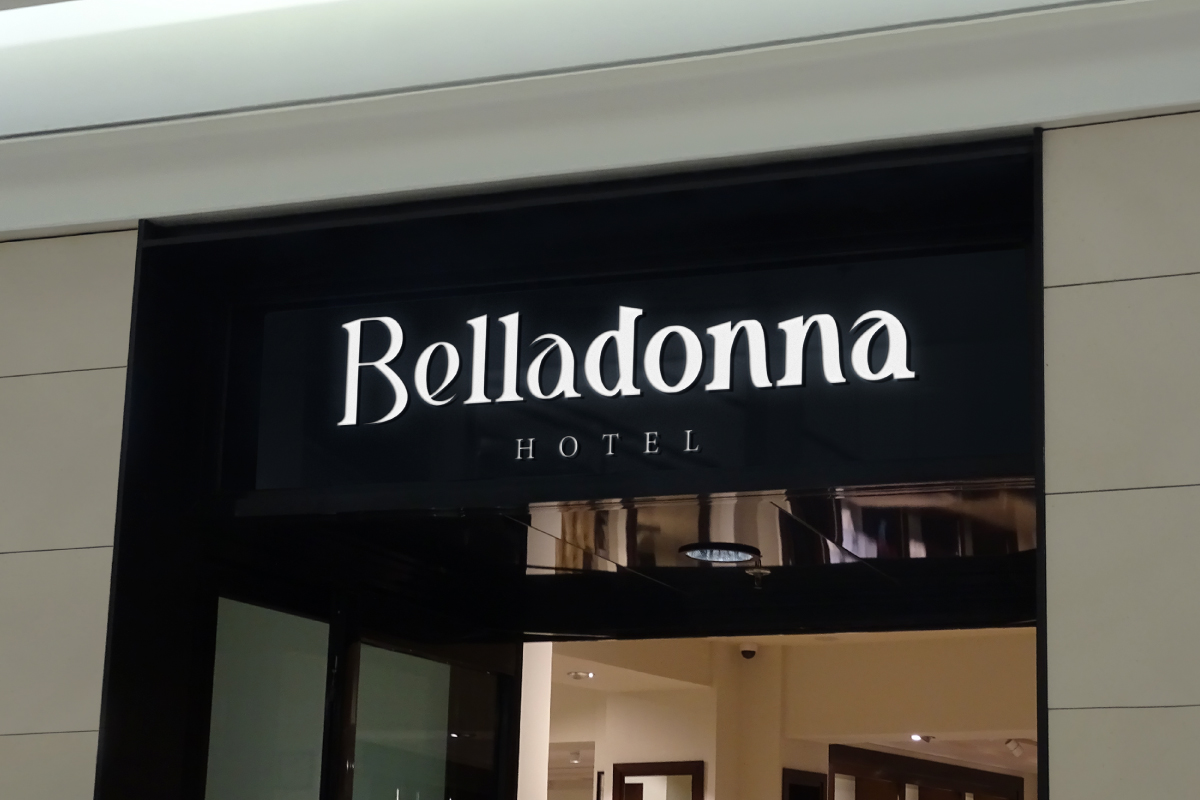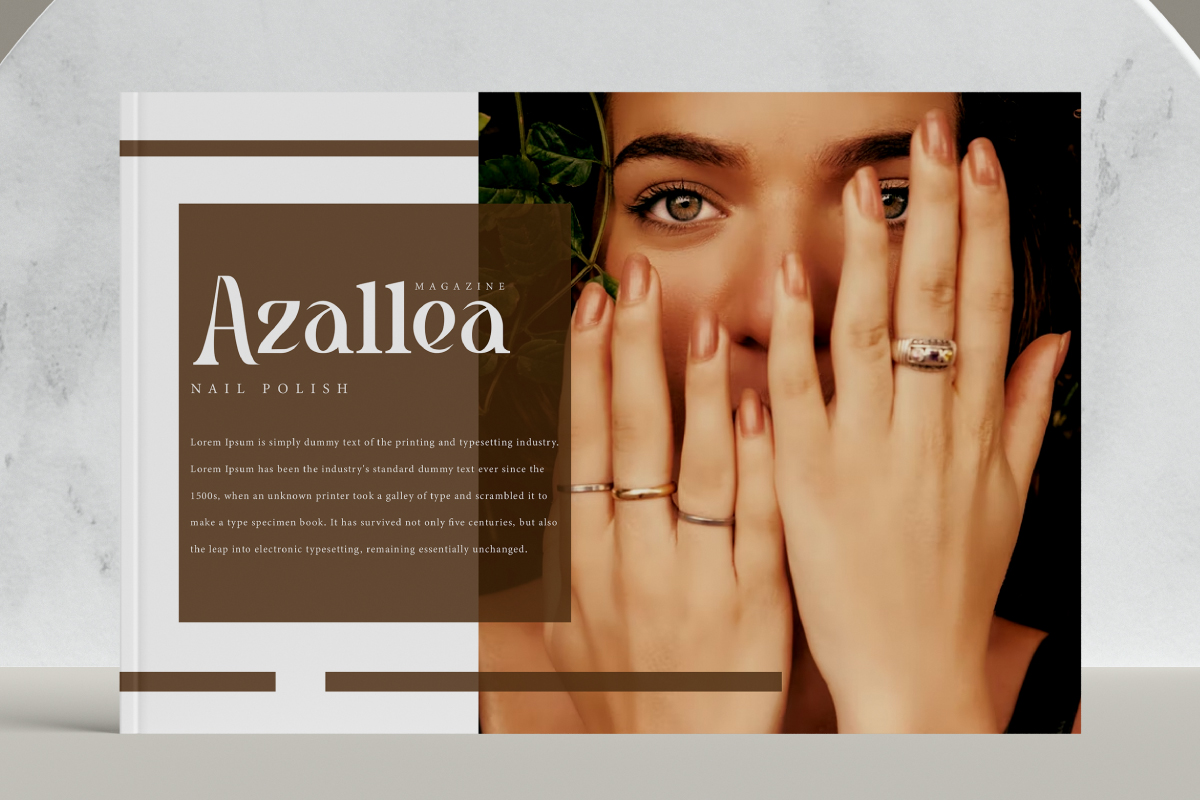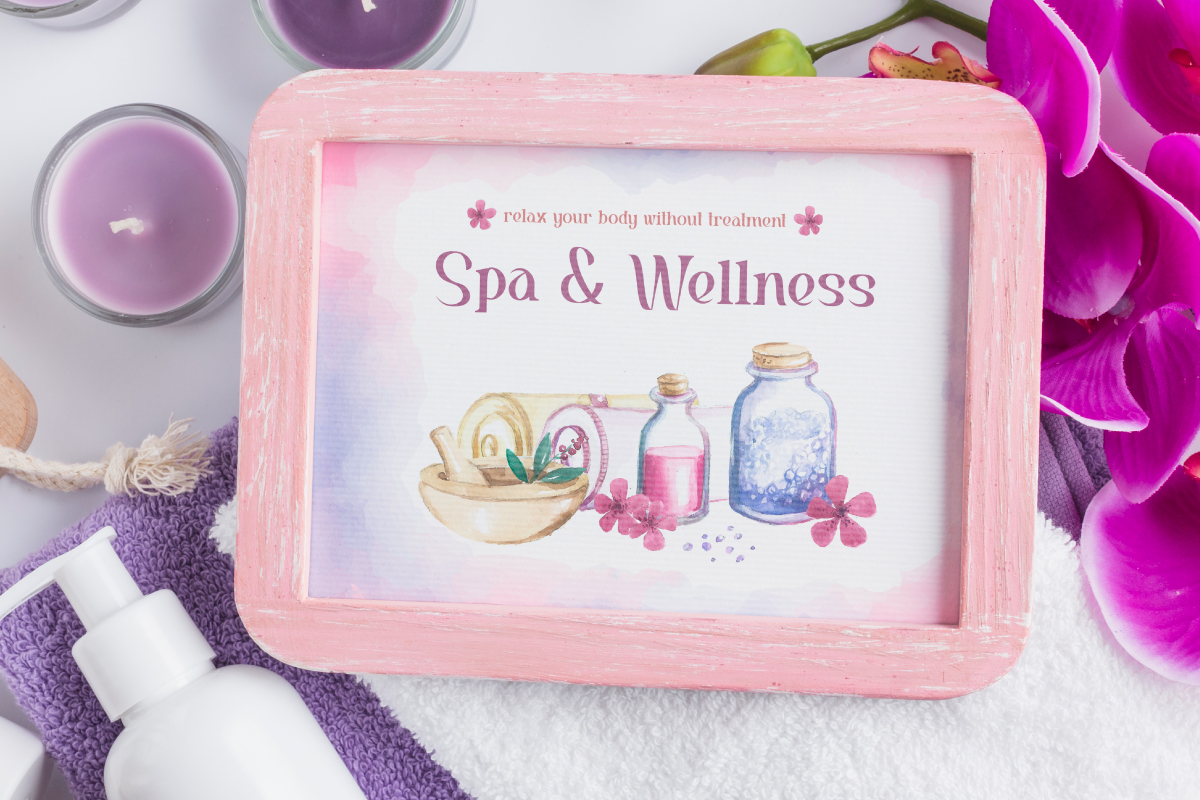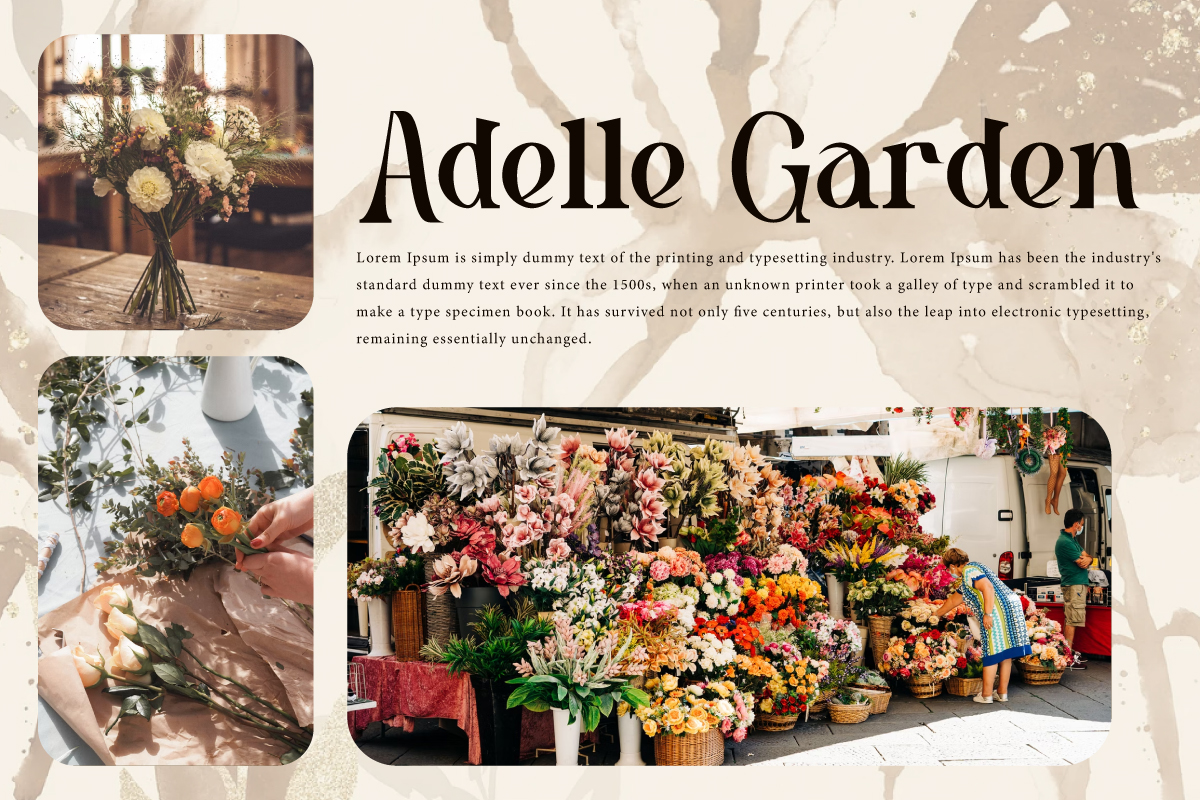
Deep Affection Serif Font is a beautiful serif font with various different styles: Regular, Italic, and Bold, that which will make your designs more attractive! It will be perfect for many industries, such as bakery, boutique, café, cosmetic, florist, handicrafts, homeware, hotel, interior design, restaurant, spa and salon, publishing, etc.